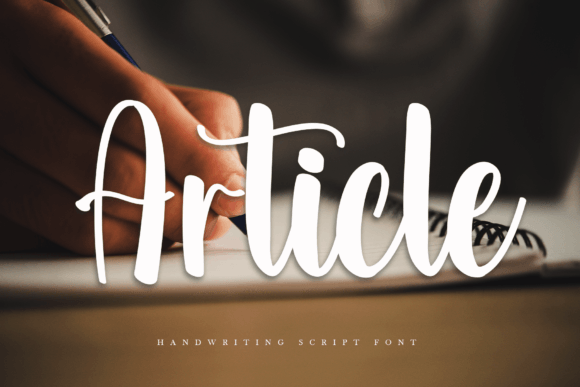
**Behold, Article Font: The Epitome of Luxury and Elegance for Your Creative Endeavors**
In a world saturated with digital monotony, let Article Font be your beacon of originality, your guiding light towards typographic brilliance. As a script font family, Article exudes an air of sophistication and grace, effortlessly elevating your designs to new heights of visual allure.
Crafted with meticulous care by the renowned Creatype Designer, Article Font is more than just a collection of glyphs; it's an artistic masterpiece, a testament to the power of imagination. Each letterform has been meticulously designed to capture the essence of timeless beauty, ensuring that your creations radiate an aura of elegance that will leave an enduring impression.
With Article Font, you'll embark on a creative journey where every word, every phrase, every design element becomes a stroke of genius. Whether you're crafting heartfelt Christmas letters, designing enchanting invitations, or creating captivating social media posts, Article Font will be your trusted companion, transforming your words into visual poetry.
As you immerse yourself in the world of Article Font, you'll discover a symphony of emotions dancing across the page. Its sweeping curves evoke a sense of romance, while its delicate flourishes add a touch of whimsy. With every design you create, you'll feel the surge of inspiration coursing through your veins, knowing that you're leaving your unique mark on the world.
So seize this opportunity to elevate your creative endeavors to new heights. Embrace the magic of Article Font, and embark on a journey where your imagination knows no bounds. Let your designs blossom with originality, let your words dance with grace, and let Article Font be the herald of your creative triumph.